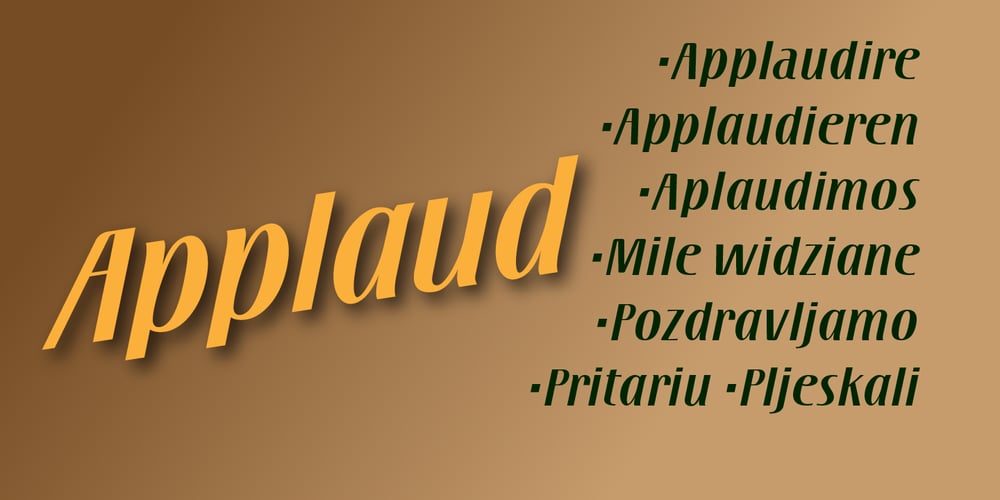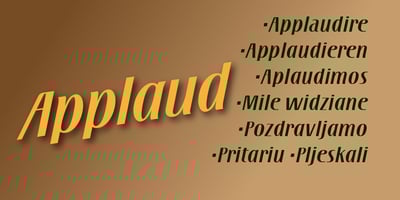
Applaud Font Family was designed by John Nahmias and published by Jonahfonts. Applaud contains 2 styles and family package options. Applaud is a very versatile font which apply to many applications including headlines, logos, ads, captions, packaging, bulletins, posters, and greeting cards as well as short texts.